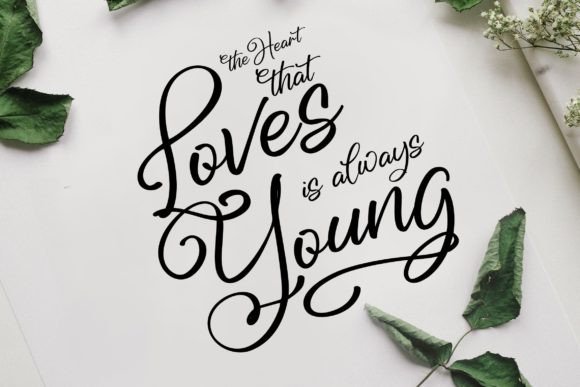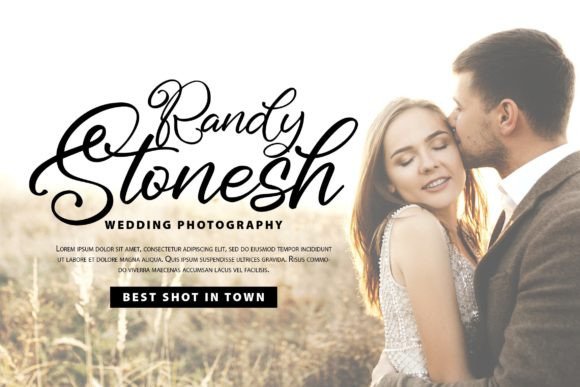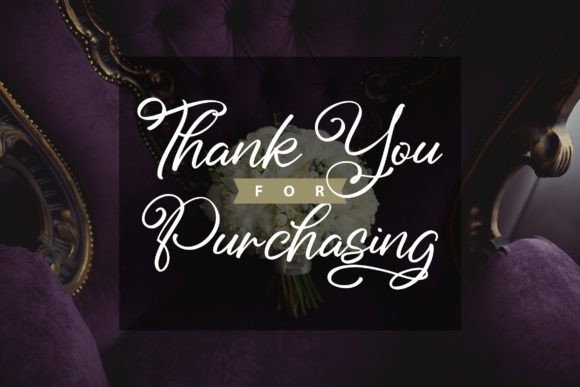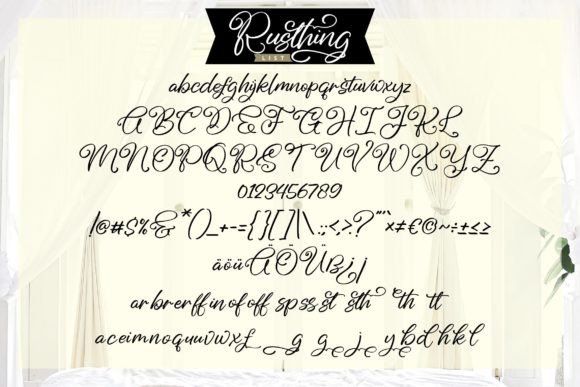
About Rusthing Font
Rusthing, an elegant handwritten font with a calligraphy style, is a visually stunning choice that adds a touch of sophistication to a variety of design projects. This versatile font is especially well-suited for invitations, greeting cards, branding materials, business cards, quotes, posters, and more.
The calligraphy style of Rusthing imparts a sense of grace and refinement to your designs. When used on invitations and greeting cards, the font adds a layer of elegance, creating a memorable and stylish impression for special occasions with its flowing and intricate letterforms.
In branding materials and business cards, Rusthing elevates the visual appeal with its elegant script. The stylish and sophisticated lettering contributes to a distinctive and memorable brand identity, adding a touch of class to your professional image.
For quotes and posters, Rusthing introduces a refined and artistic element. The calligraphic style of the font brings a personalized and expressive flair, making your quotes and poster designs visually appealing and captivating.
In summary, Rusthing is more than just a font; it’s a design asset that brings elegance and sophistication to your projects. Its calligraphy style, combined with PUA encoding, makes it a versatile and user-friendly choice for various applications where a touch of refined aesthetics is desired.